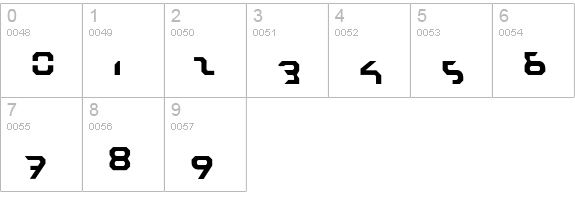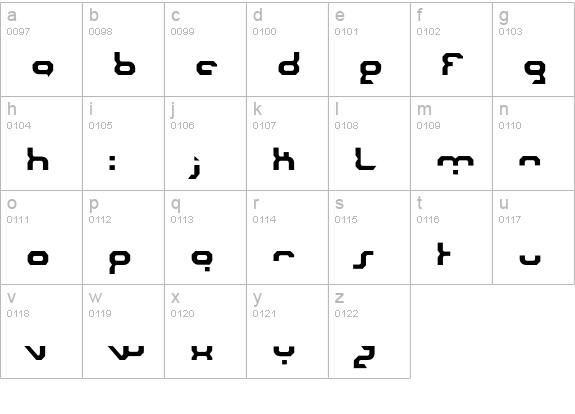
Urbanite Font Details
Introducing Urbanite, a modern and edgy font that embodies the essence of urban life. With its sleek and sophisticated design, this typeface is perfect for capturing attention and making a bold statement. The sharp angles and clean lines of Urbanite evoke a sense of modernity and urbanity, making it the ideal choice for contemporary designs. Urbanite is a versatile font that can be used in a variety of projects, from branding and logos to posters and social media graphics. Its bold and distinctive style will ensure that your message stands out from the crowd and leaves a lasting impression. One of the best features of Urbanite is that it is free to download. You can easily access this font at FontsMarket.com, where it is readily available for use in both personal and commercial projects. Whether you're a designer looking to add a touch of urban flair to your work or a business owner wanting to create a memorable brand identity, Urbanite is the perfect choice. Don't miss out on the opportunity to enhance your designs with the modern and captivating Urbanite font. Download it for free at FontsMarket.com and let your creativity shine.